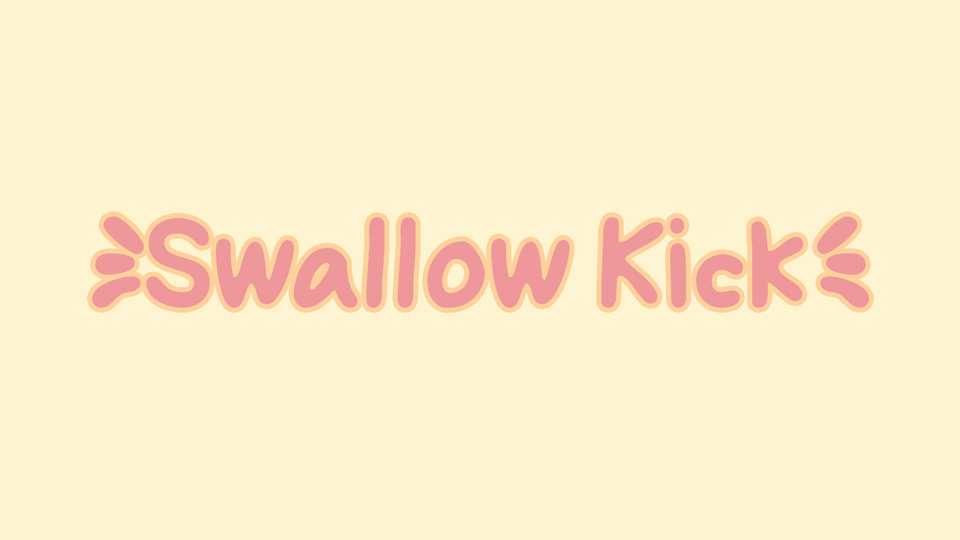
Download Swallow Kick font, a simple and funny handwritten typeface. Swallow Kick font is perfect for books, greeting cards, posters, clothing, picture books or anything that requires a fun and happiness look.